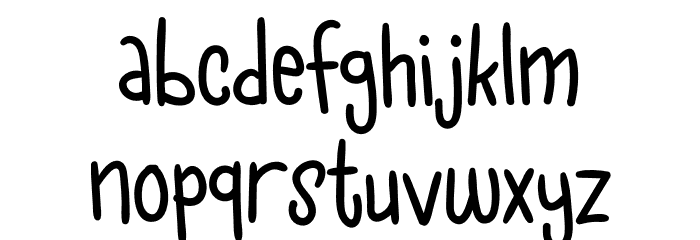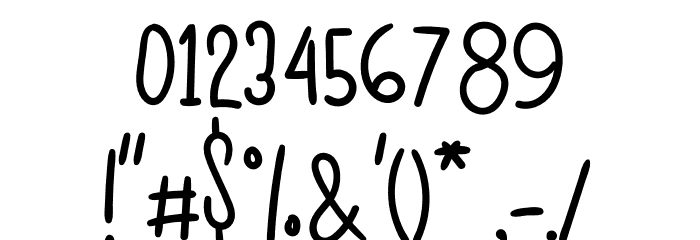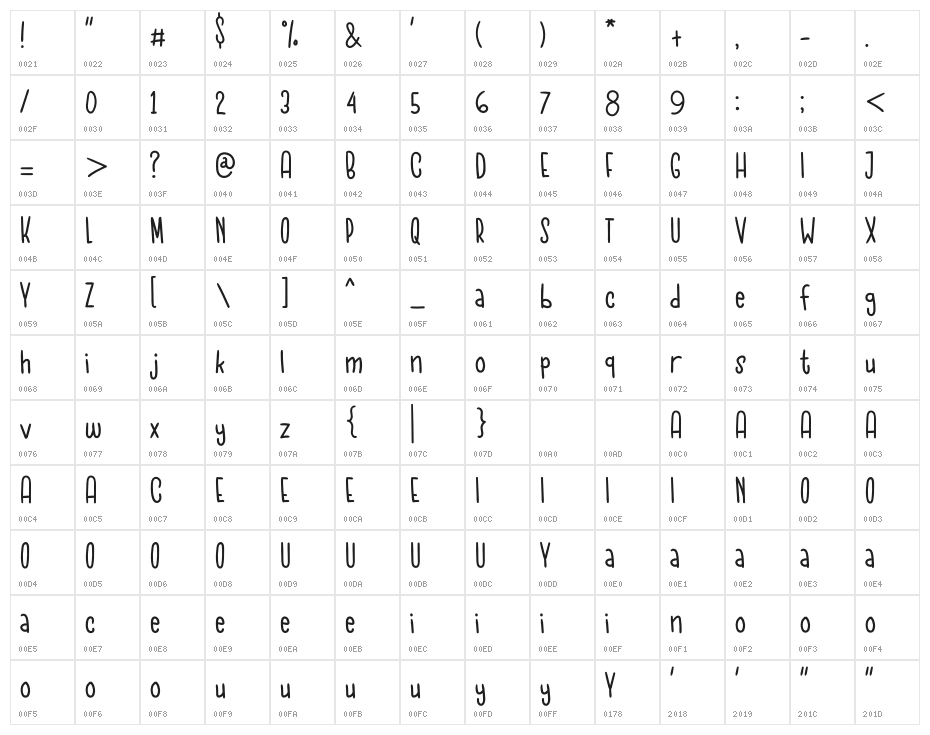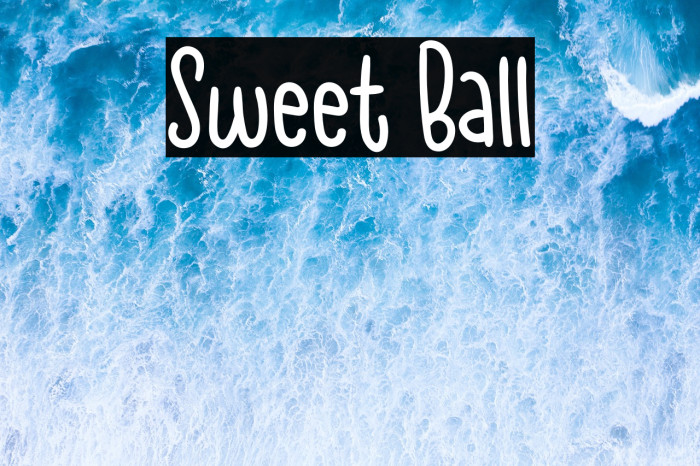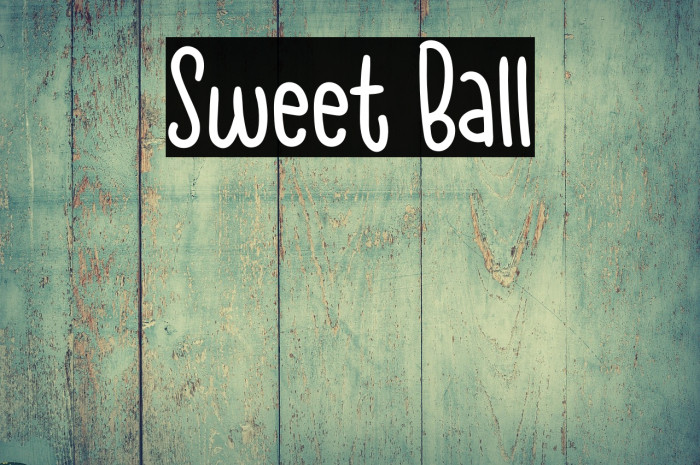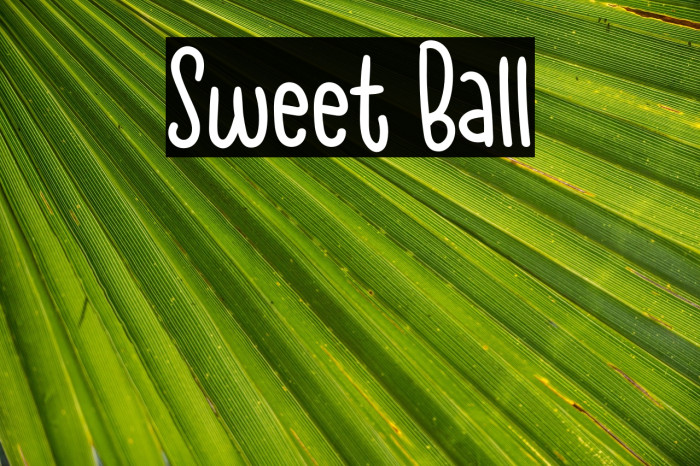
Sweet Ball Font
This playful and whimsical font features a handwritten style with rounded edges and a casual, friendly appearance. The characters are slightly irregular, giving it a natural and organic feel. The uppercase and lowercase letters maintain a consistent flow, with a slight slant that adds to its informal charm. The numerals and special characters are designed to match the overall style, ensuring a cohesive look across all text. This font is perfect for projects that require a personal touch, such as invitations, greeting cards, and playful branding.
A playful, handwritten font with rounded edges and a casual style.
- Proposed Projects: Ideal for invitations, greeting cards, playful branding, and children's books.
- Overall Style: Playful, Casual
- Use Case: Headlines, Logos, Invitations